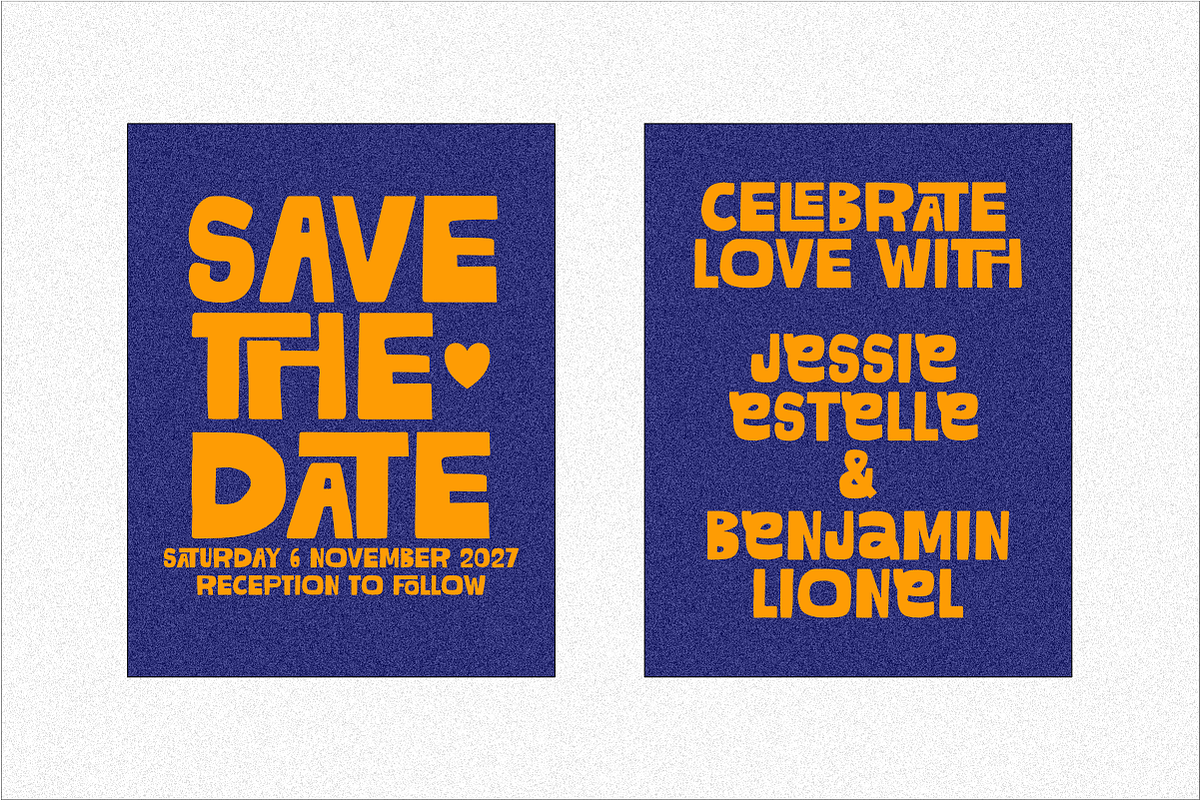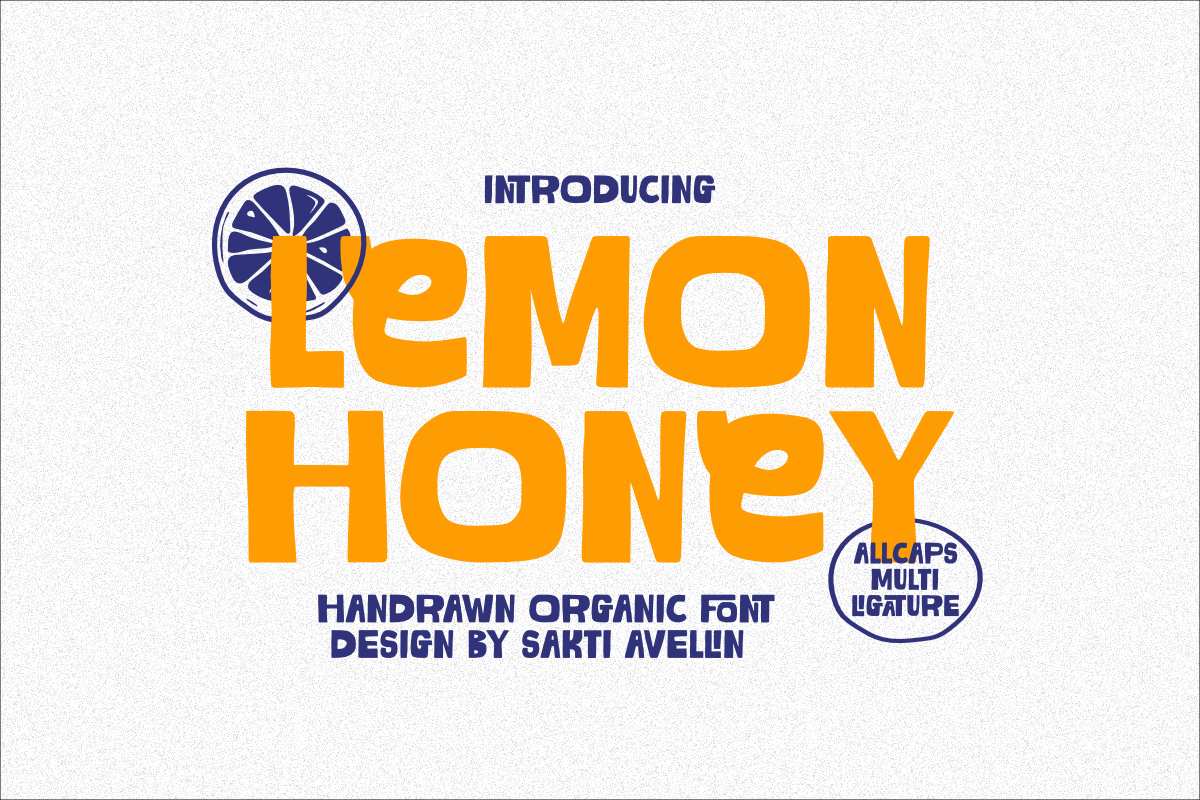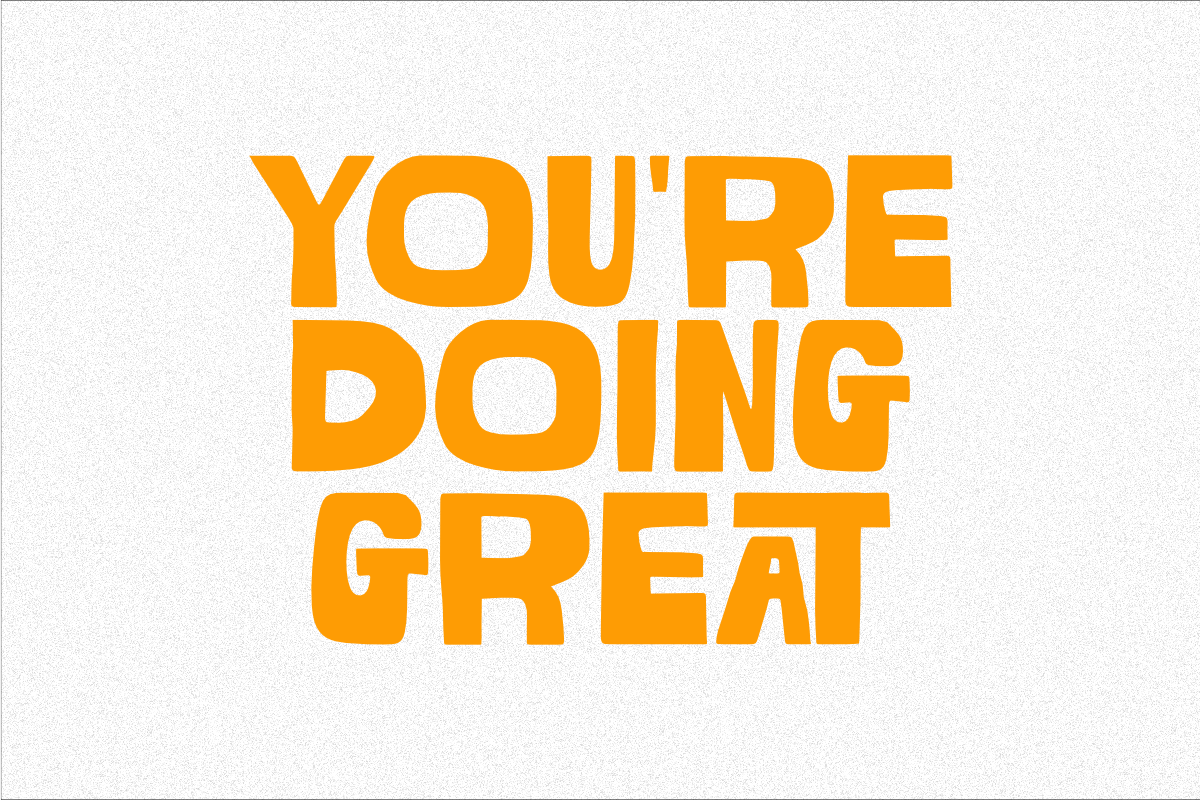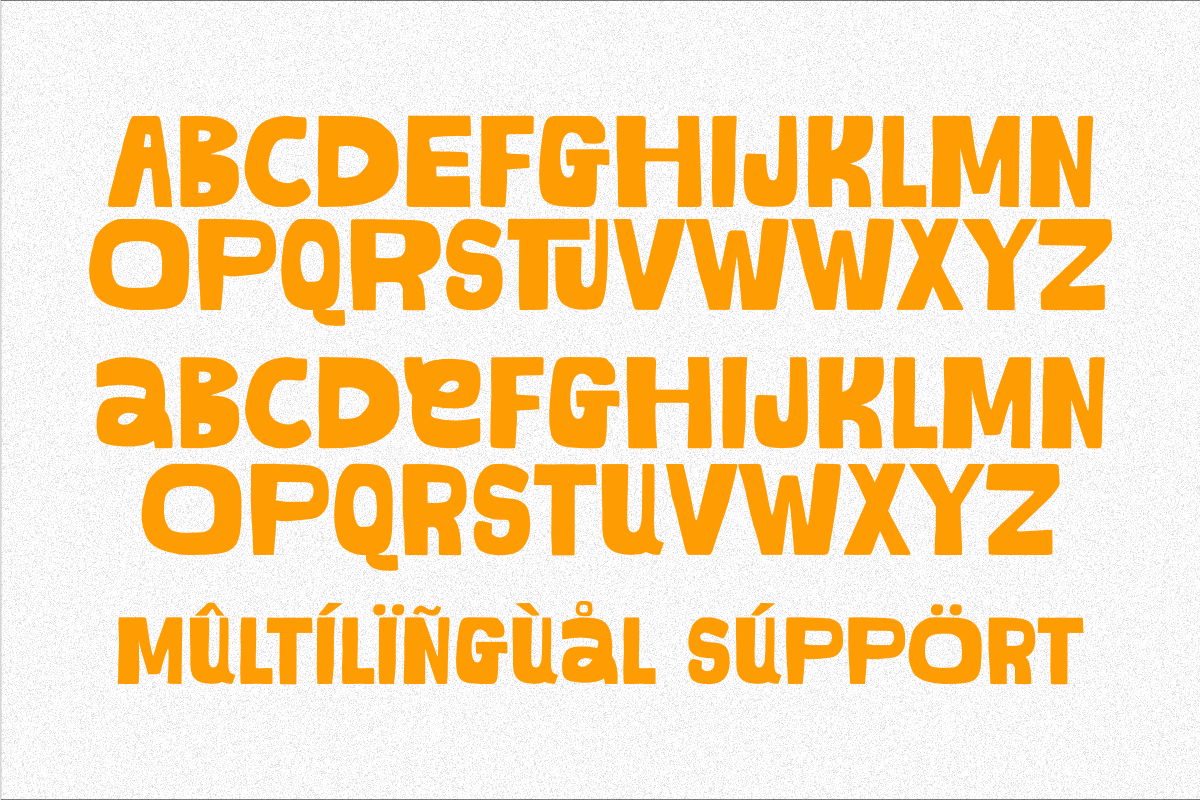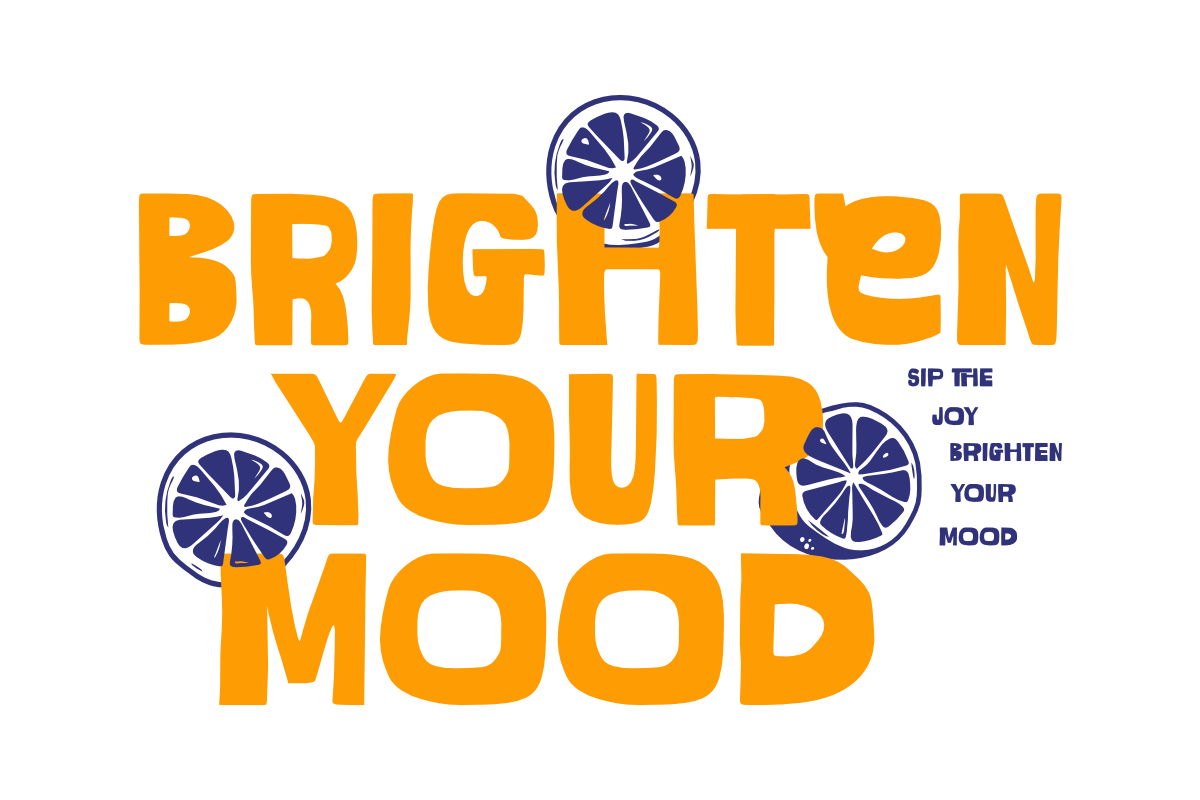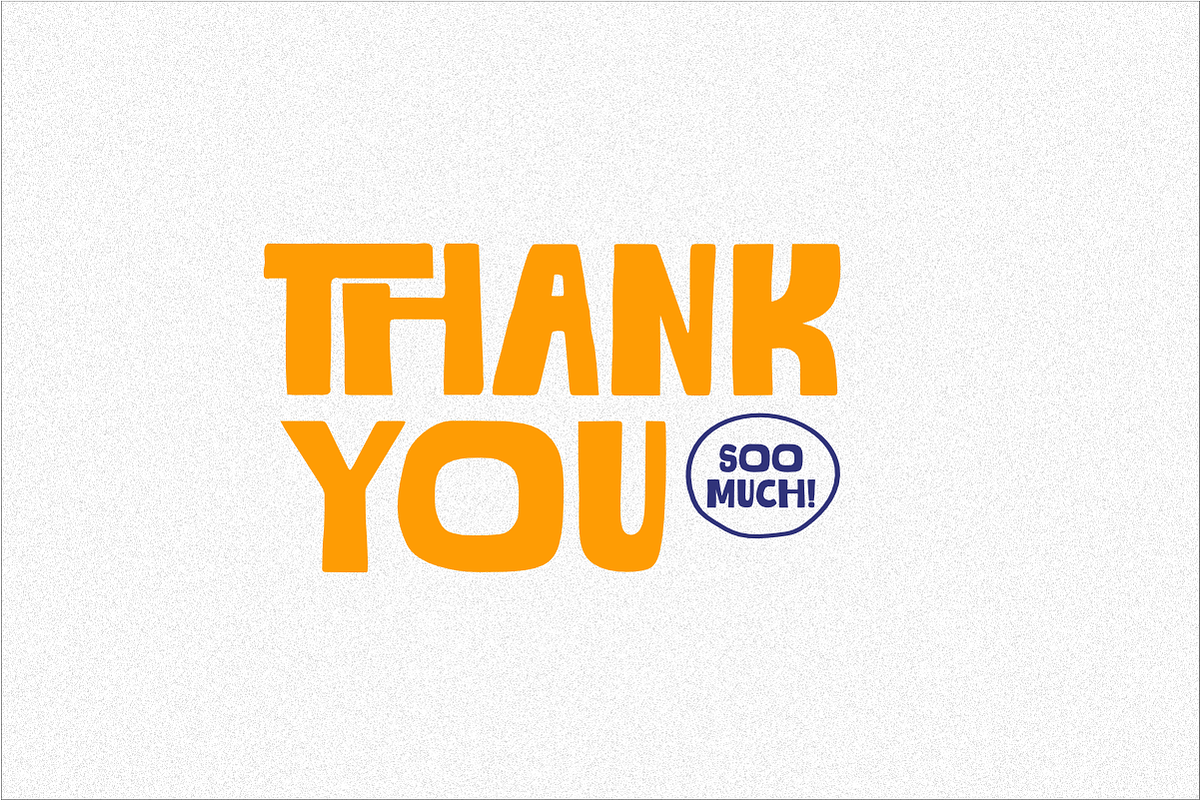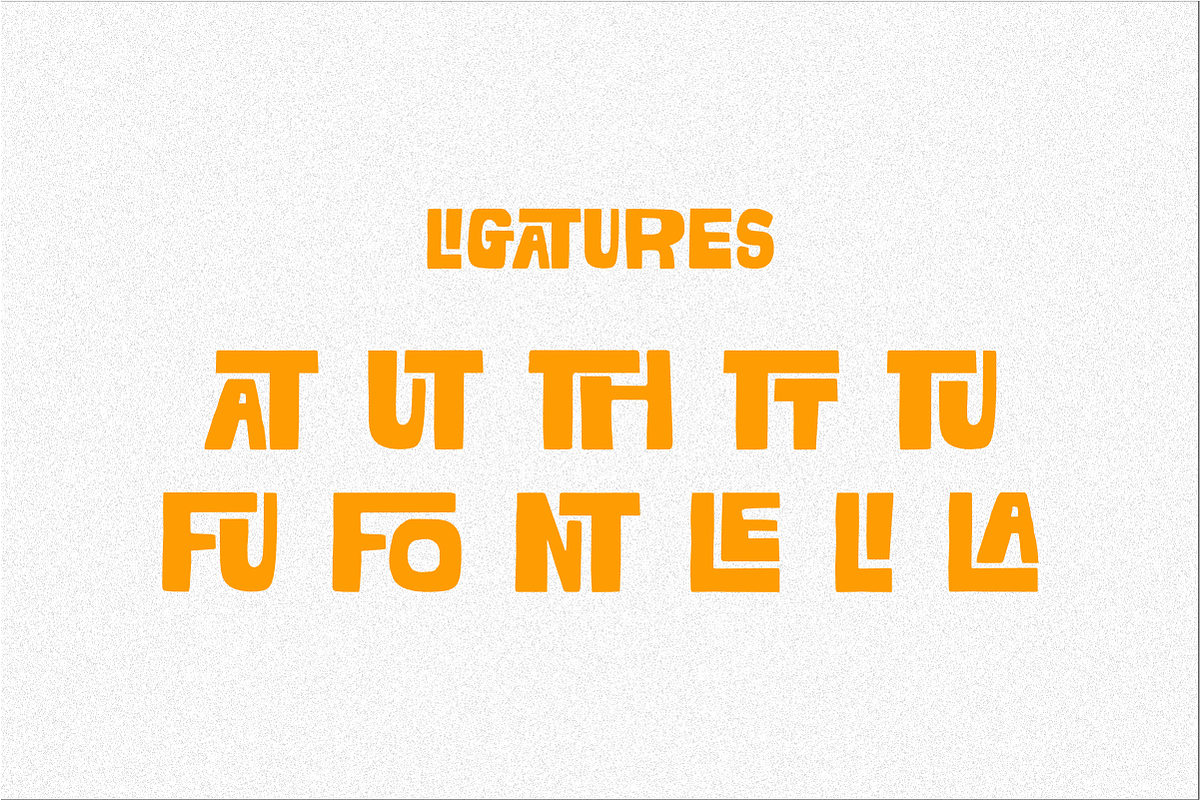
Lemon Honey - Handrawn Organic Font
Lemon Honey is a vibrant and refreshing handdrawn organic font designed to bring a natural, sweet energy to your creative projects. This allcaps multi ligature typeface features unique, chunky, and handcrafted letterforms that effortlessly capture a cheerful and organic spirit. Perfect for food and beverage branding, organic product packaging, summer posters, cafe menus, cheerful greeting cards, and social media graphics, this font ensures your headlines stand out with a distinct personality. Whether you are designing for cute merchandise, trendy apparel, or whimsical stationery, Lemon Honey adds a delightful and creative touch to every design.